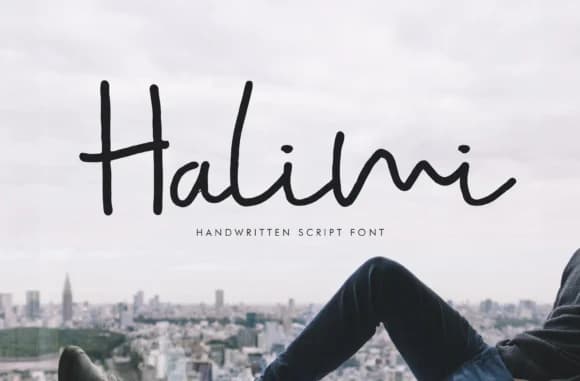
About Halimi Font
Halimi Font by Nest Studio is a contemporary handwritten script that brings an organic, approachable quality to visual projects. Created with the intention of infusing designs with authentic handwriting characteristics, Halimi balances casual charm with enough refinement to work across both personal and professional contexts. The font carries that friendly, personal quality that modern audiences respond to, while maintaining the control and legibility necessary for serious design work.
The font shines for wedding invitation suites where personal touches matter most, DIY greeting card designs that need genuine warmth, and boutique branding projects seeking a human-centered aesthetic. Designers also gravitate toward Halimi for journal covers, event menu design, and personal stationery where an informal but intentional hand-lettered feel conveys personality. Its versatile nature makes it equally suited to packaging labels for small-batch artisan products, gift tags for handmade goods, and casual brand communication where that human touch matters.
- Elegant, Flowing, Halimi
Halimi Font is a script font that shines as a display or heading face. Pair it with a clean sans-serif or serif font for body text β the contrast creates a clear hierarchy while the two styles stay balanced and easy to read.